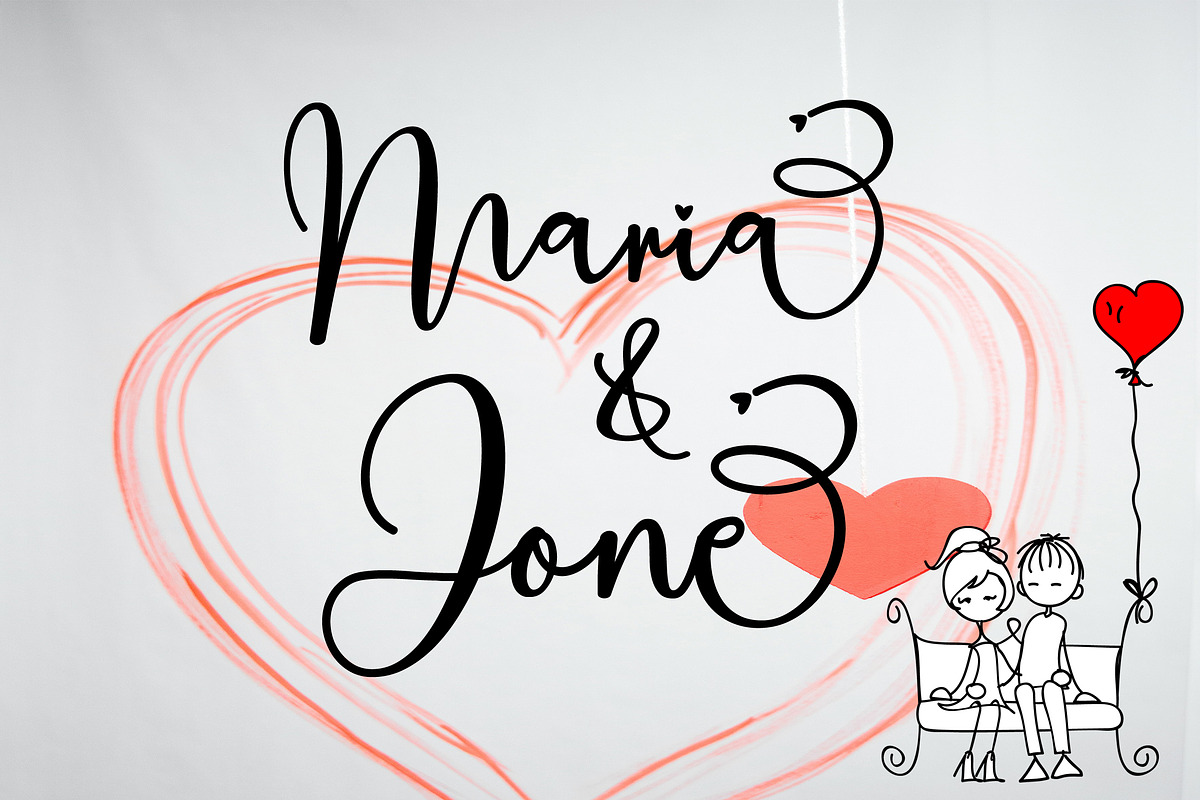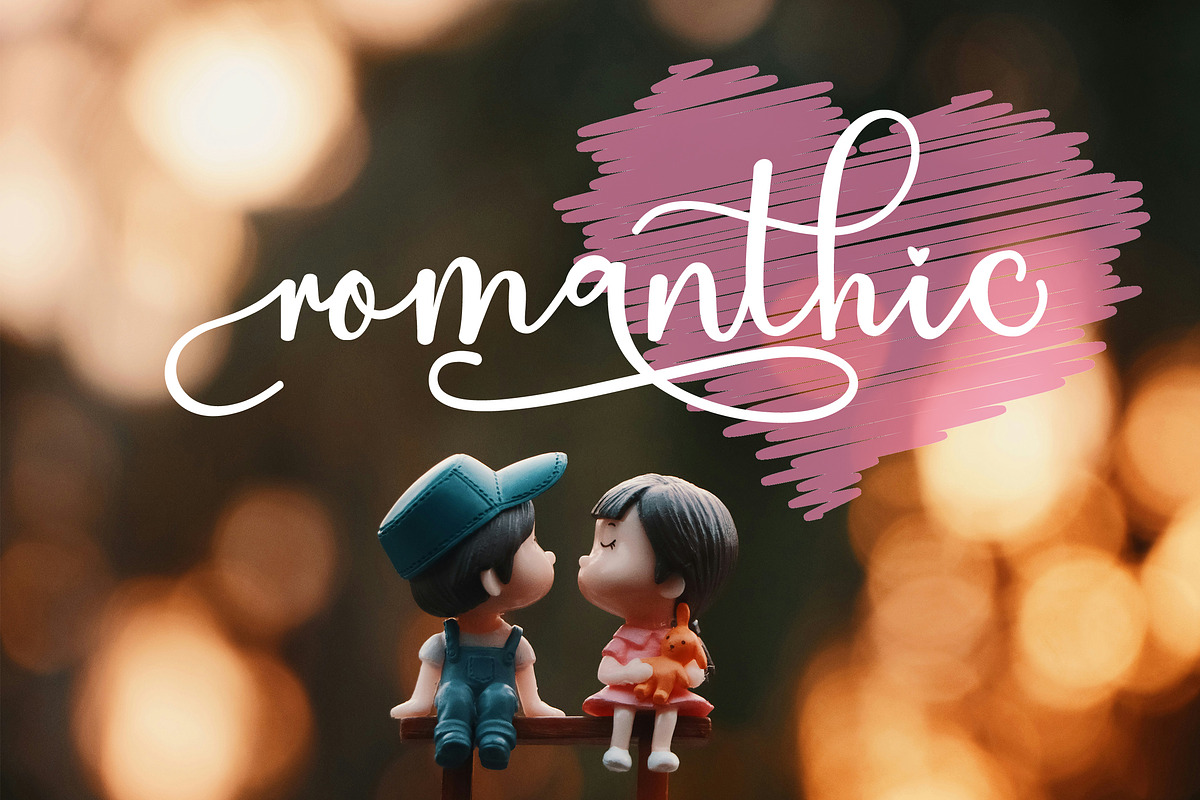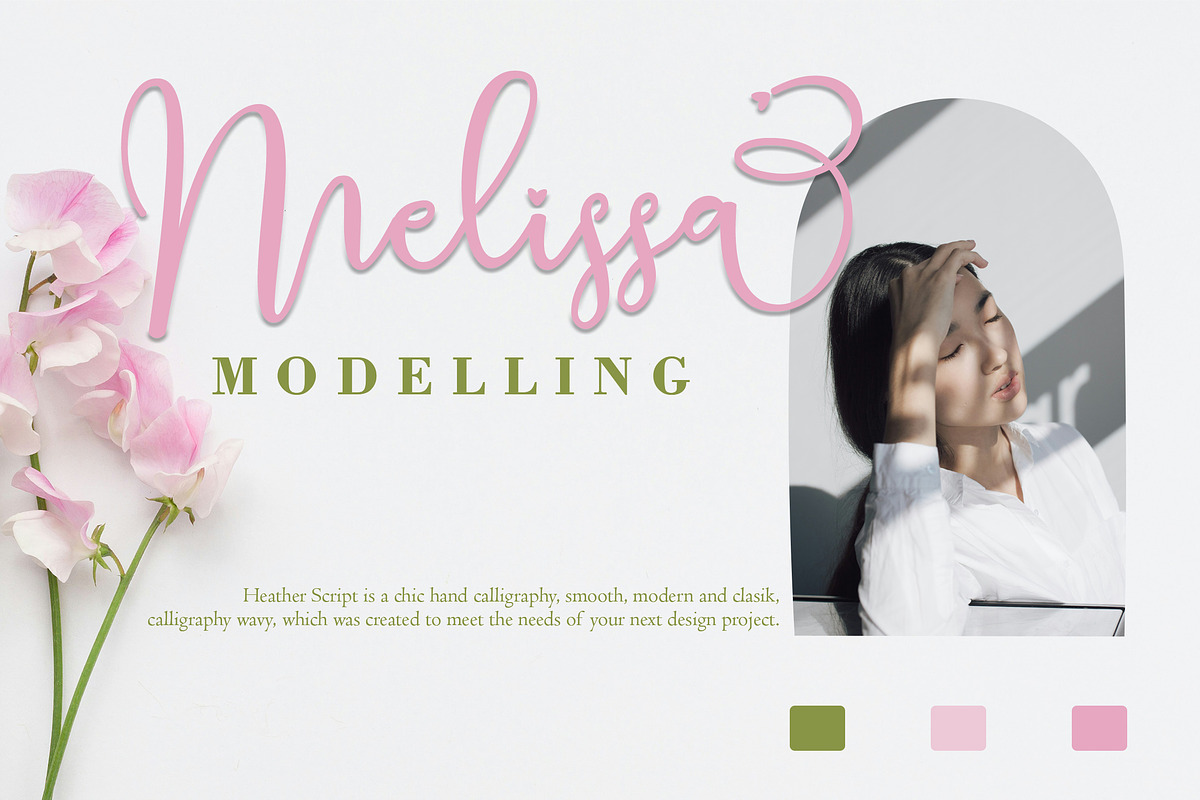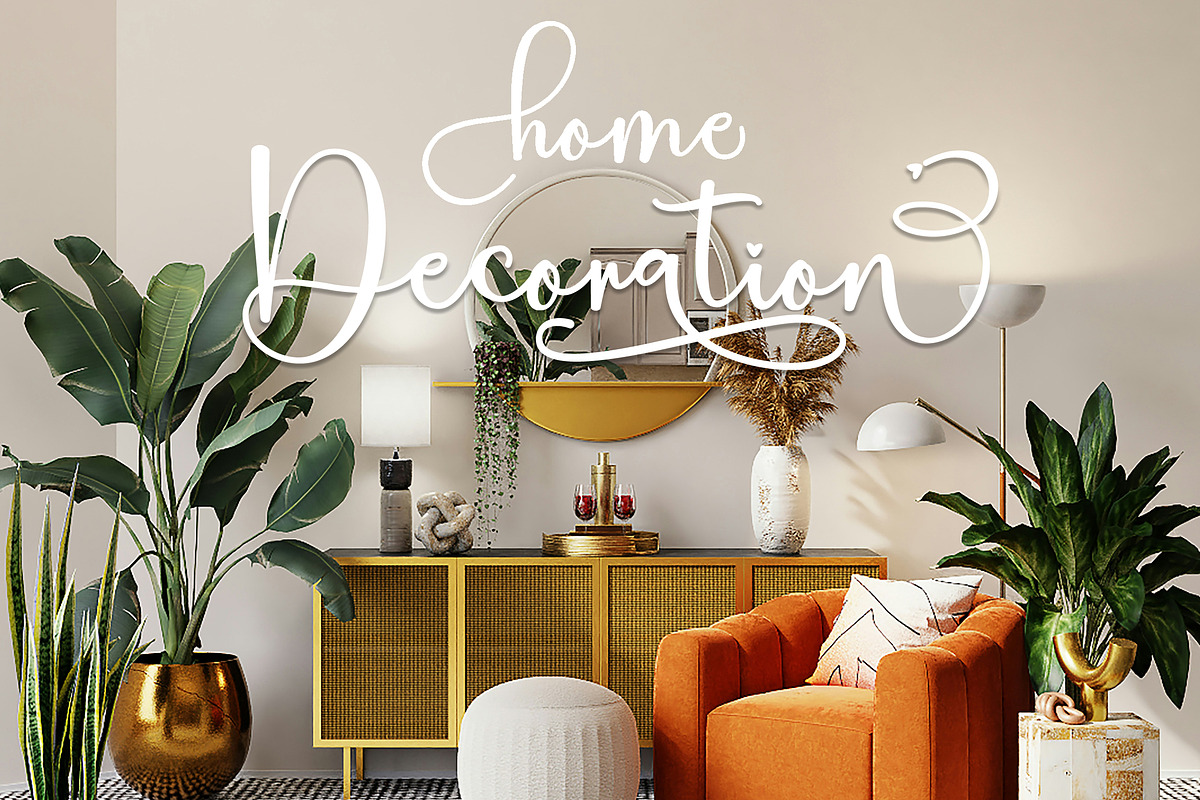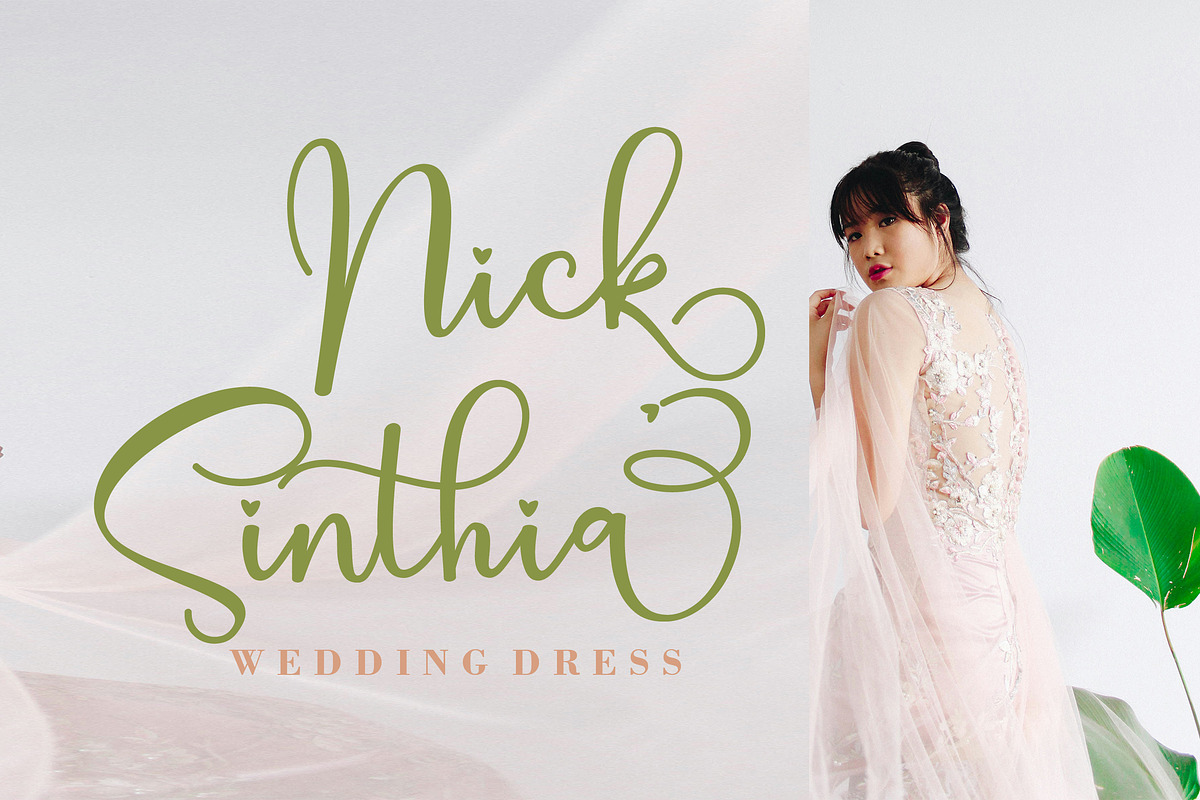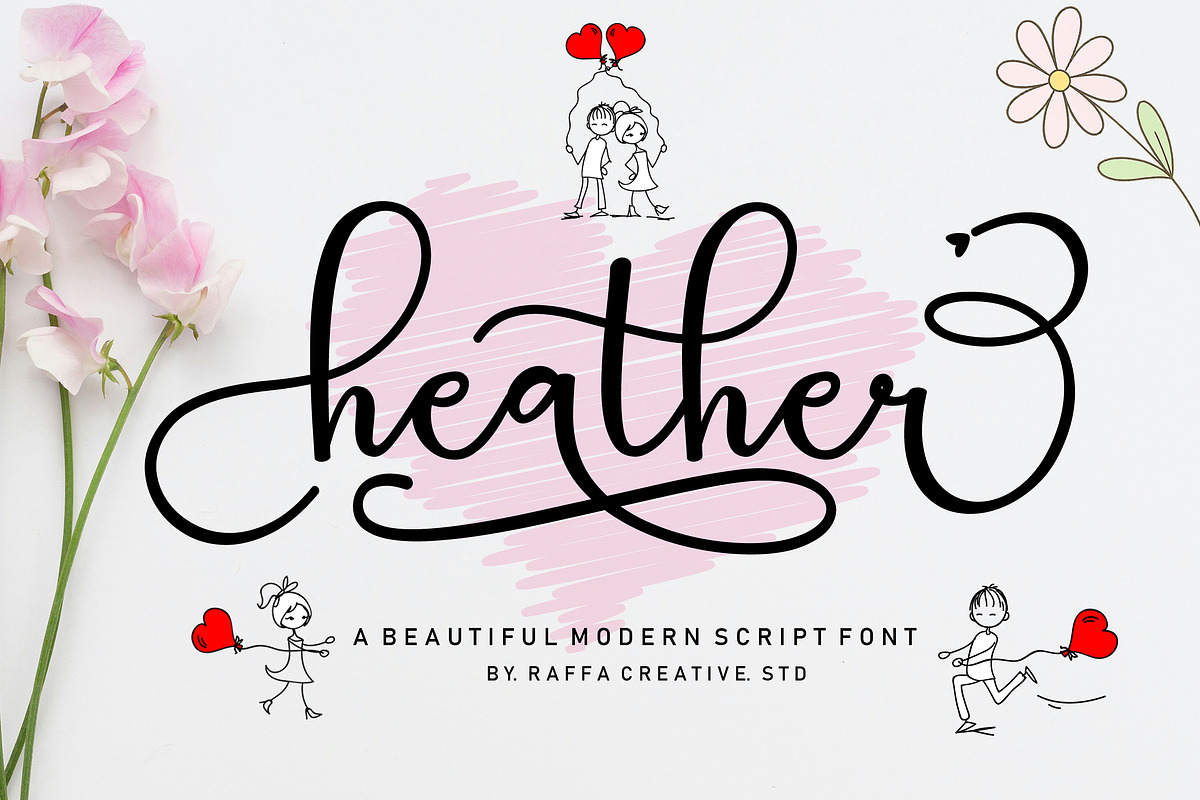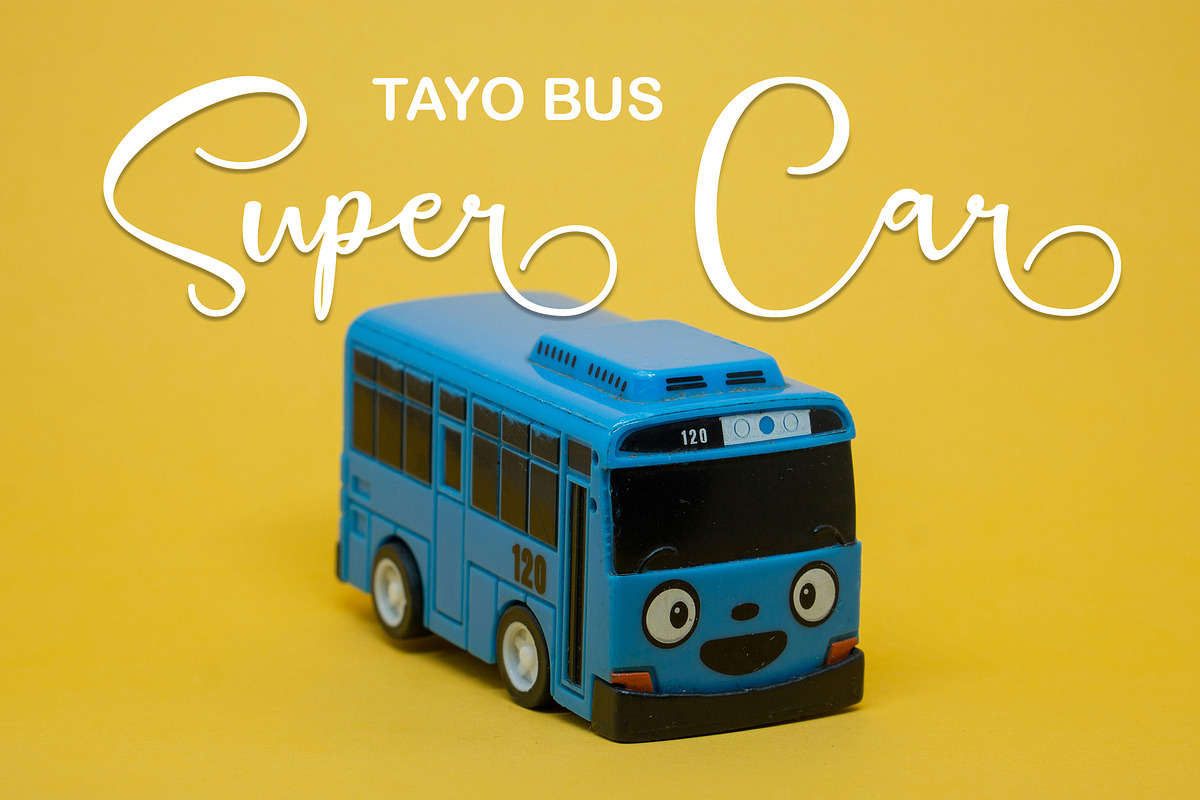
Heather Script
Heather Script a timeless typeface that captures the elegance and charm of vintage script handwriting. This font features flowing, intricate strokes reminiscent of calligraphy from a bygone era, adding a touch of beautiful swash and sophistication to any design.
Perfectly suited for logos, wedding invitations, branding, signage, display product, and packaging, its graceful curves and carefully crafted details create an authentic vintage script feel. Whether you’re aiming to evoke a sense of romance, luxury, or tradition, Modern Calligraphy font will elevate your designs, giving them a truly distinctive and stylish touch.